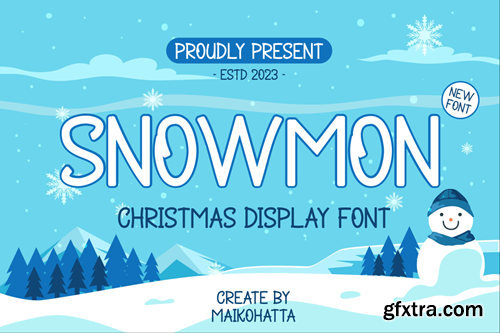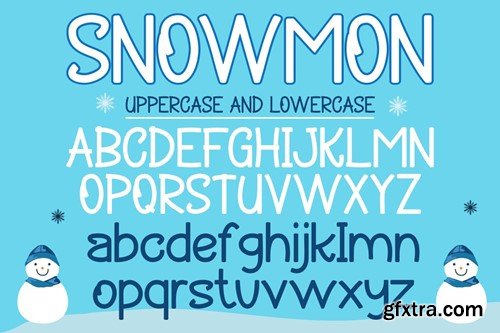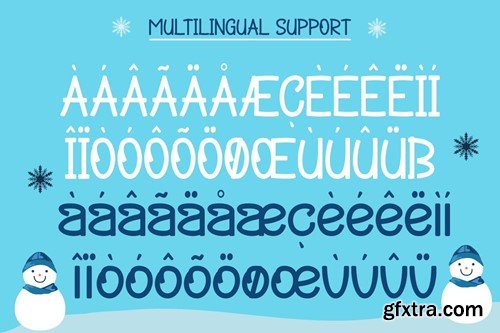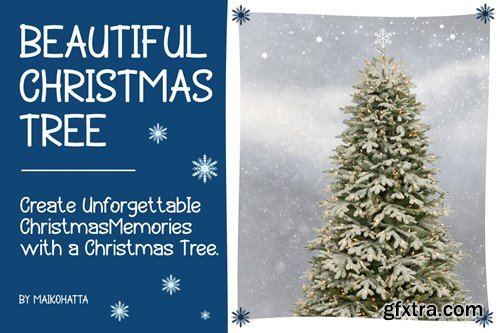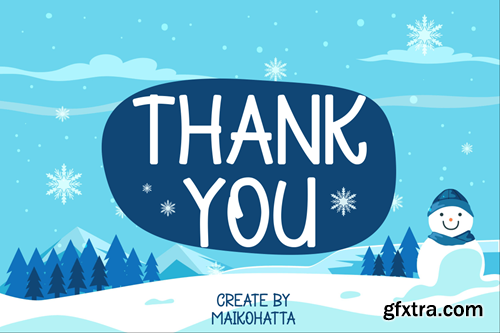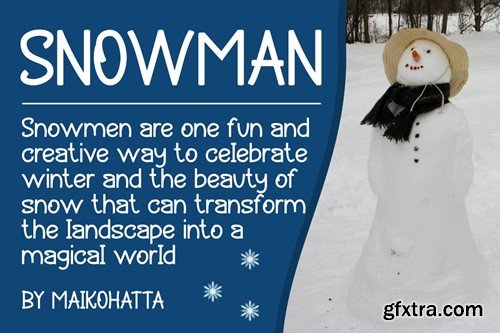
Snowmon - Christmas Display Font 7HF9T26
Snowmon - Christmas Display Font
Introducing our new product Snowmon - Christmas Display Font
This font is specifically designed to create a Christmas atmosphere and mood. It is often used in graphic design, greeting cards, posters, and various other visual elements related to the celebration of Christmas.
• Uppercase
• Lowercase
• Multilingual